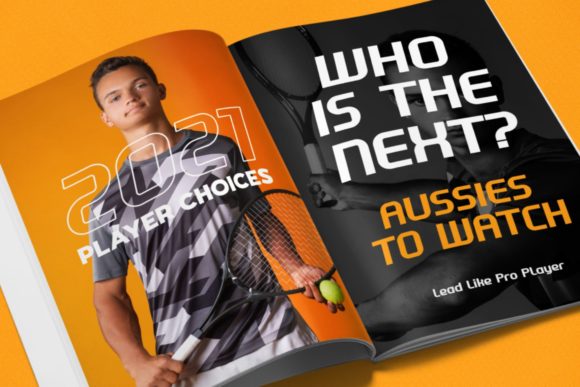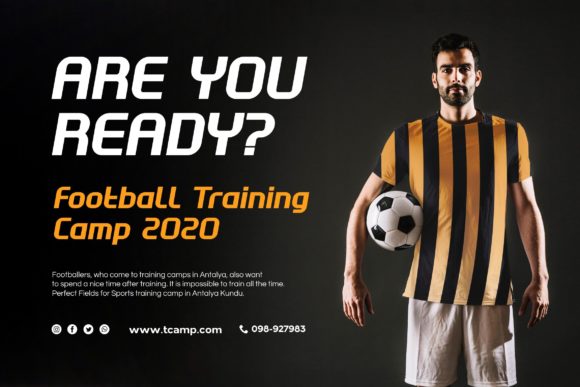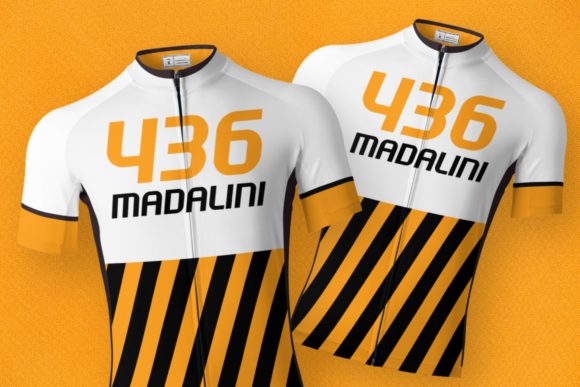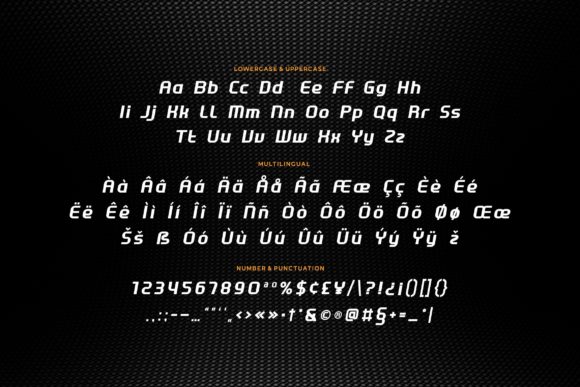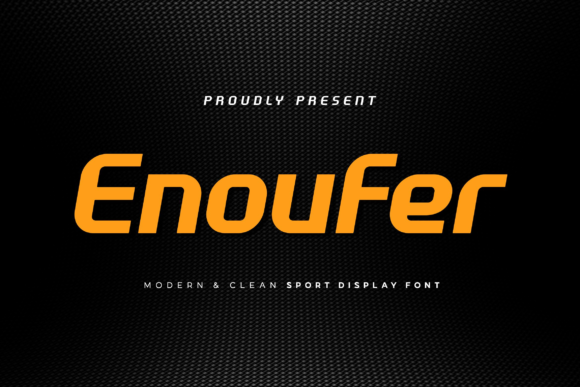
Introducing Enoufer Font: The Ultimate Display Font for Bold Designs
Are you tired of using the same old fonts for your designs? Look no further! Enoufer Font is here to take your typography to the next level. This cool, thick lettered, and assertive display font is perfect for creating stunning posters, flyers, and prints that demand attention.
What Makes Enoufer Font So Special?
Enoufer Font is a unique and versatile font that can elevate any design project. Its thick, bold letters exude confidence and assertiveness, making it perfect for designers who want to create a lasting impression. Whether you’re working on a poster, flyer, or print, Enoufer Font is sure to turn heads.
One of the best things about Enoufer Font is its endless possibilities. You can use it for a wide range of design projects, from:
- Posters and flyers for events, concerts, or festivals
- Print materials for businesses, such as brochures, catalogs, or logos
- Social media graphics and posts that need to stand out
- Signs and banners for advertising or promotional purposes
Why Choose Enoufer Font?
So, why should you choose Enoufer Font for your design projects? Here are just a few reasons:
- Unique and Memorable: Enoufer Font is unlike any other font out there. Its bold, thick letters will make your designs stand out and be remembered.
- Versatile: Enoufer Font can be used for a wide range of design projects, from posters and flyers to prints and social media graphics.
- Easy to Read: Despite its boldness, Enoufer Font is easy to read, even at smaller sizes.
- Customizable: You can customize Enoufer Font to fit your design needs, from adjusting the size and color to adding effects and textures.
How to Use Enoufer Font in Your Designs
Using Enoufer Font in your designs is easy! Here are a few tips to get you started:
- Pair it with Other Fonts: Enoufer Font looks great when paired with other fonts, such as sans-serif fonts for a modern look or script fonts for a more elegant feel.
- Experiment with Colors: Enoufer Font comes in a range of colors, from bold and bright to subtle and muted. Experiment with different colors to find the perfect fit for your design.
- Play with Texture and Effects: Add some extra depth and interest to your design by adding textures or effects to Enoufer Font.
Key Features of Enoufer Font
- Cool, thick lettered, and assertive display font
- Perfect for posters, flyers, prints, and more
- Unique and memorable style
- Customizable to fit your design needs